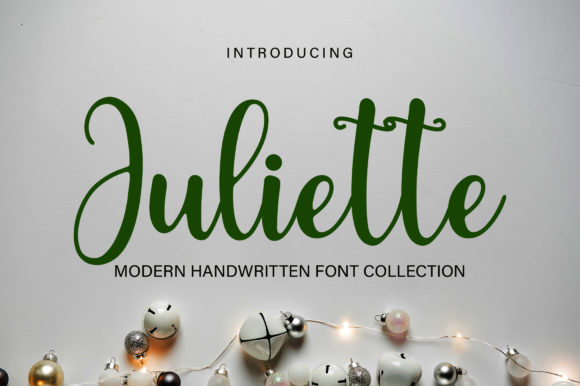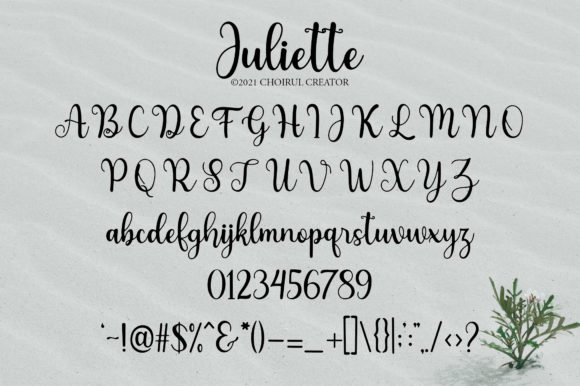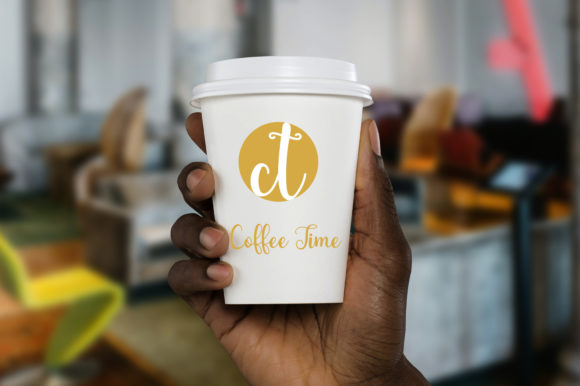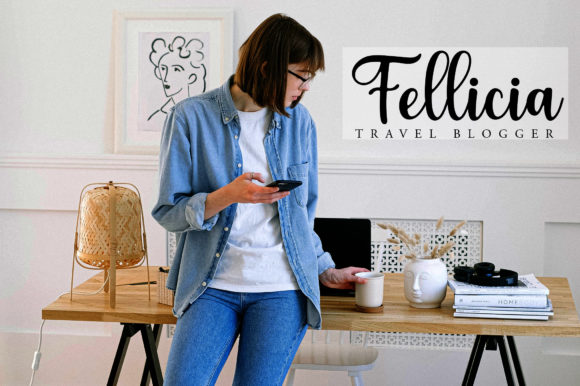
About Juliette Font
Juliette is a flowing handwritten font, described by an elegant touch, perfect for your favorite projects. Fall in love with its incredibly distinct and timeless style and use it to create spectacular designs!